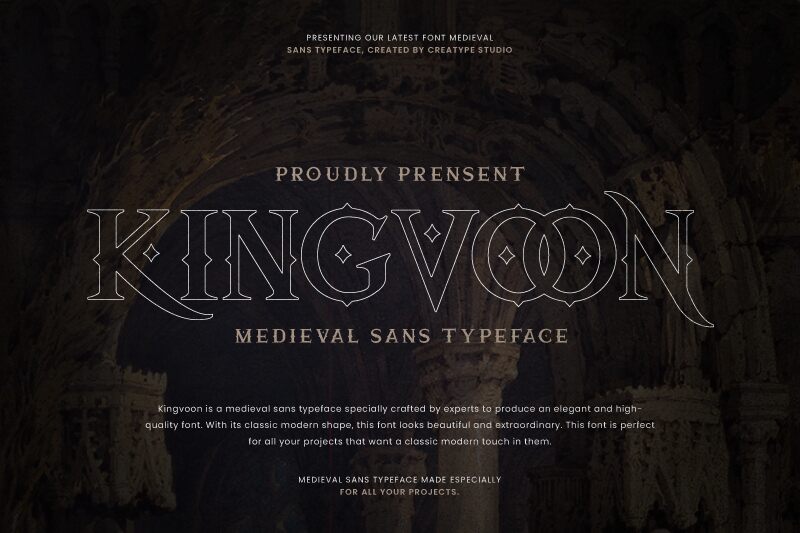
Kingvoon font by Creatype Studio is a modern gothic font that brings a sense of refined elegance and grandeur to any design. Its vintage-inspired design encompasses ornate and decorative elements, making it suitable for creative projects with historical references such as medieval or gothic themes. Sophisticated yet contemporary, this typeface effortlessly balances traditional aspects with a modern twist.
Kingvoon Regular